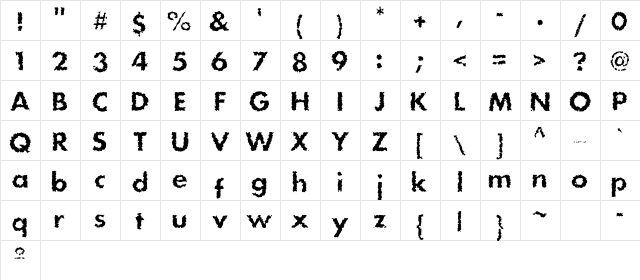
DS StainC Regular
Design Context for DS StainC Typeface
DS StainC is a composed and adaptable typeface that performs quietly and consistently across a wide range of design contexts.
Pro Tip: Pair DS StainC with a font of contrasting weight or personality to build a more expressive typographic hierarchy.